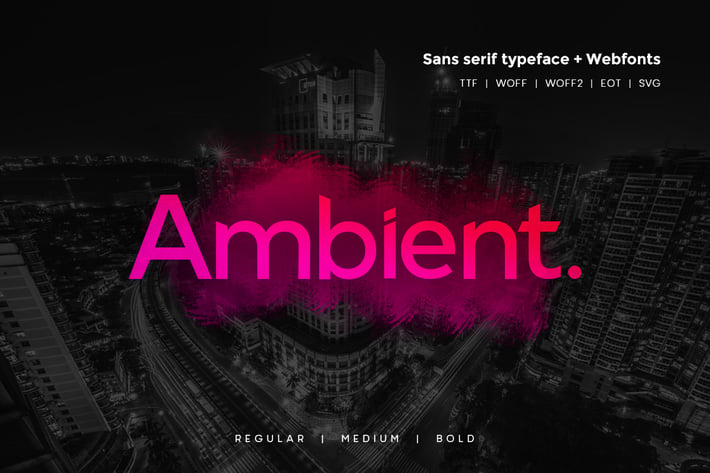
Ambient - Modern Typeface + WebFonts
Ambient Sans Typeface
Another modern fantastic sanserif typeface from Unbranded, which delivers a remarkable unique typography with 3 font weights. The pack includes OTF, TTF and Web Fonts (all EOT, SVG, TTF, WOFF included).